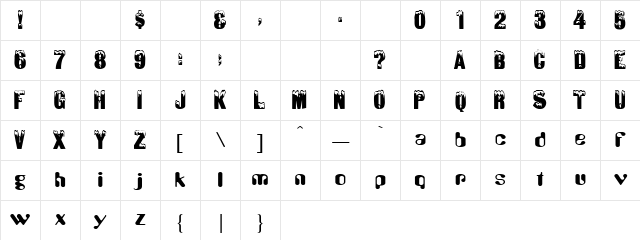
Minneapolis Regular Normal
Design Context for Minneapolis Regular
Minneapolis Regular is a composed and adaptable typeface that performs quietly and consistently across a wide range of design contexts.